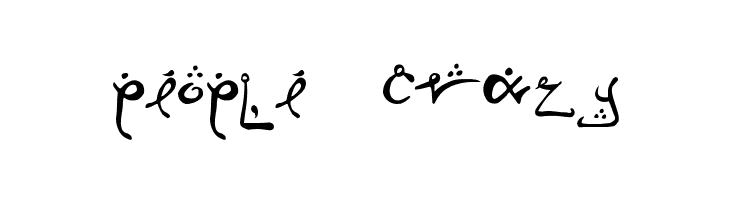
emilia natasha Font
- Font: emilia natasha
( Fonts by Uddi Uddi )
A whimsical and artistic font with decorative elements and varying stroke thickness.